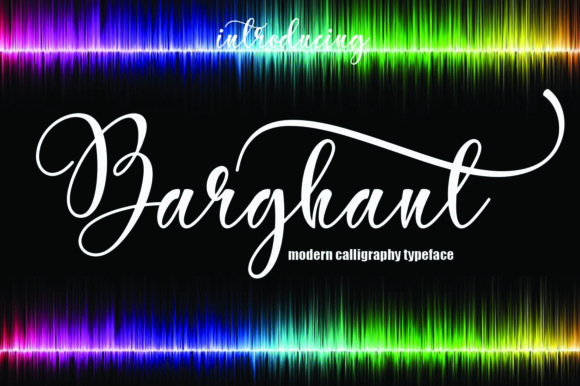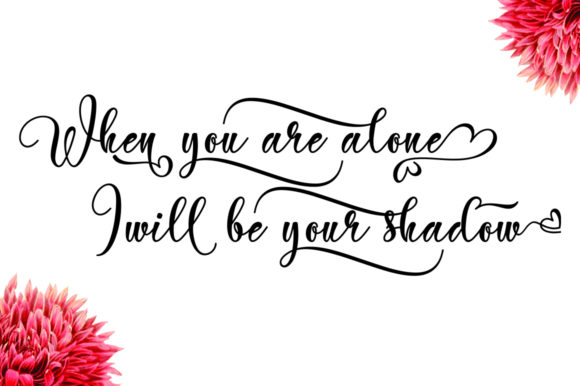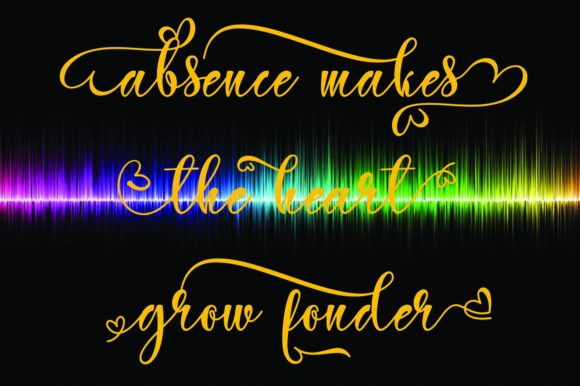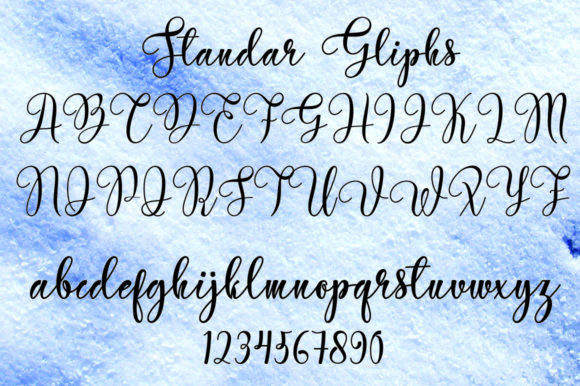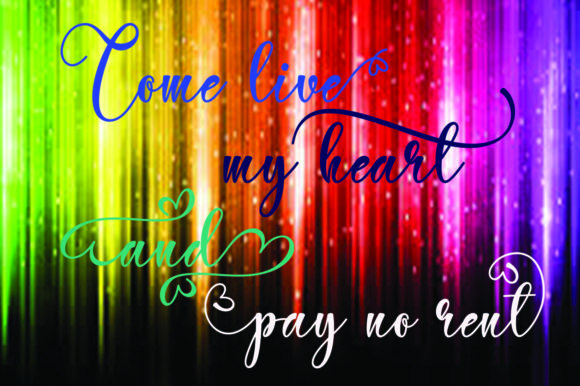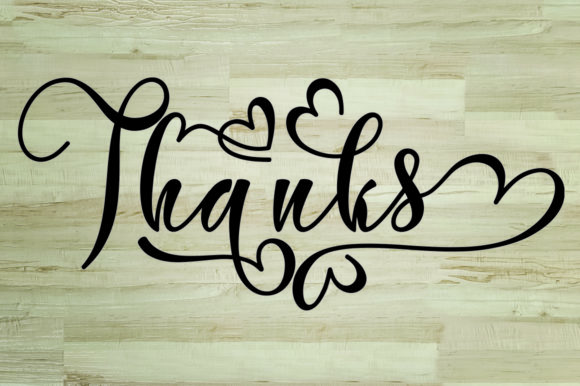
Barghant Font
About Barghant Font
The Barghant is a stylish calligraphy font. It has a dancing baseline which will give your designs an elegant touch.
It can be used for various purposes such as: logos, headings, signatures, wedding invitations, t-shirts, and much more!